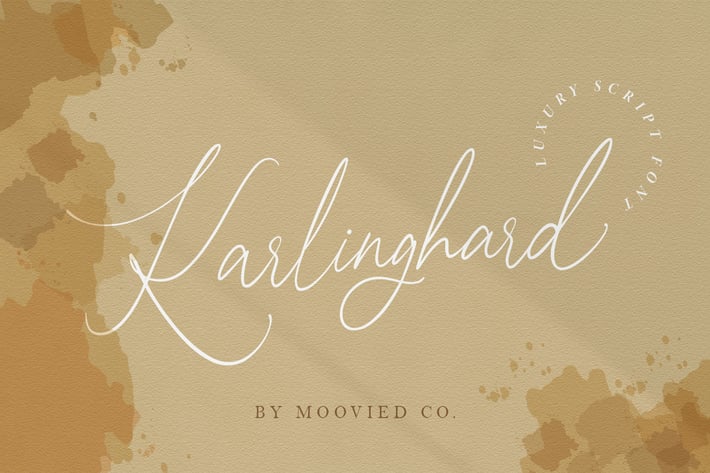
Karlinghard Font
Karlinghard Font is a modern signature, It is perfect for blogging, social media, branding, product packaging, wedding invitations, branding, headlines, signage, labels, signature, book covers, posters, quotes and more.
Basic Latin A-Z and a-z, Alternates a-z, Numbers,
Ligatures Multilanguage Support